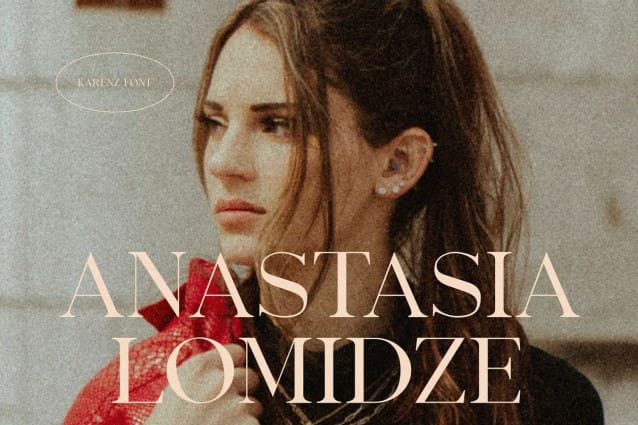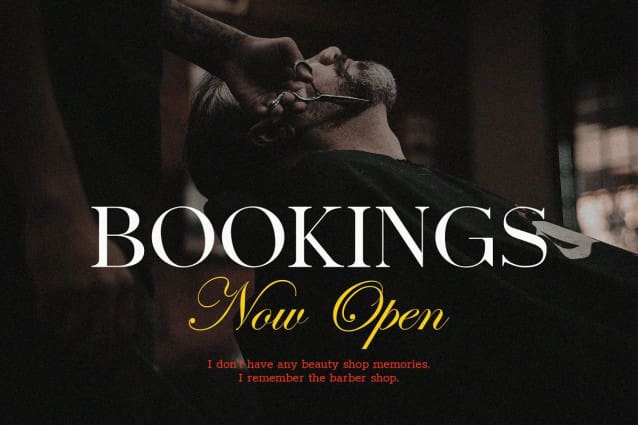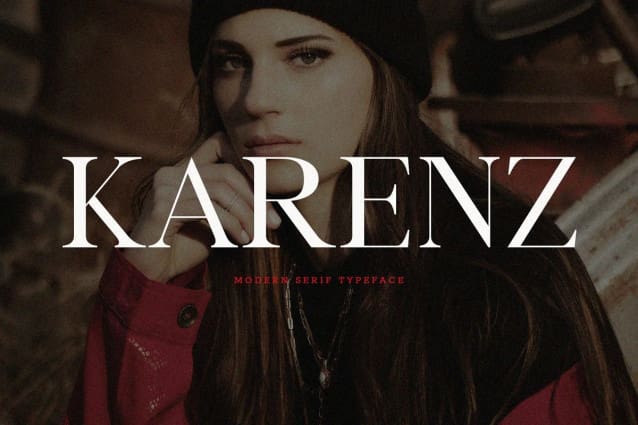
Karenz Font
Karenz Font has a neat, modern and elegant impression. This font is perfect for use as titles and subtitles. Very good if used to write an ad on social media or others, then this equinox font will give a modern impression.